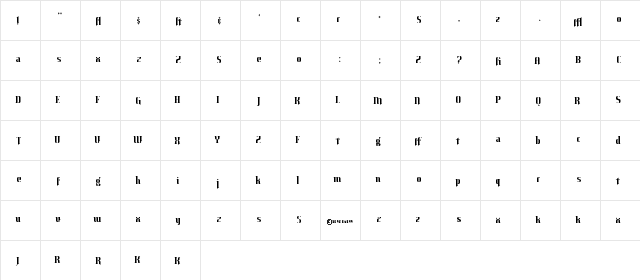
Effleurage Regular
| Designer | Gene Buban |
Design Context for Effleurage Typeface
Effleurage takes a measured approach to typography — its balanced proportions and neutral character make it a reliable workhorse for both digital and print work.